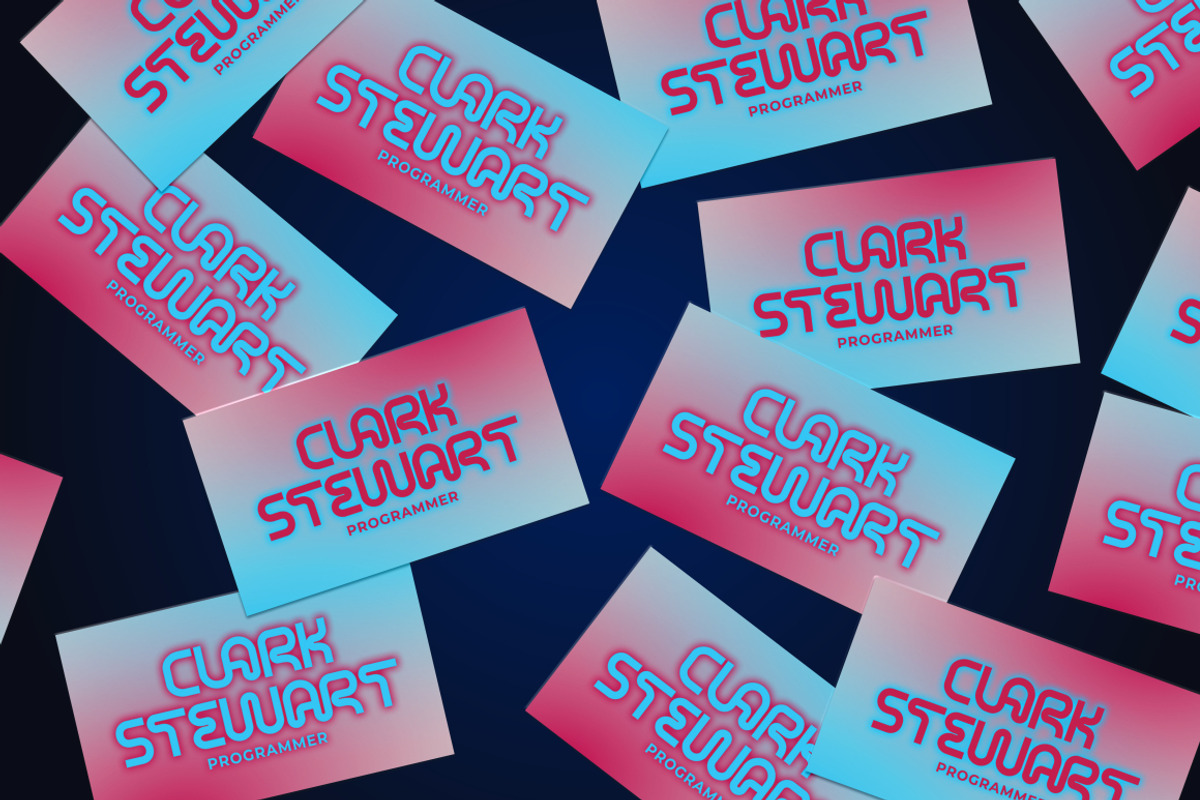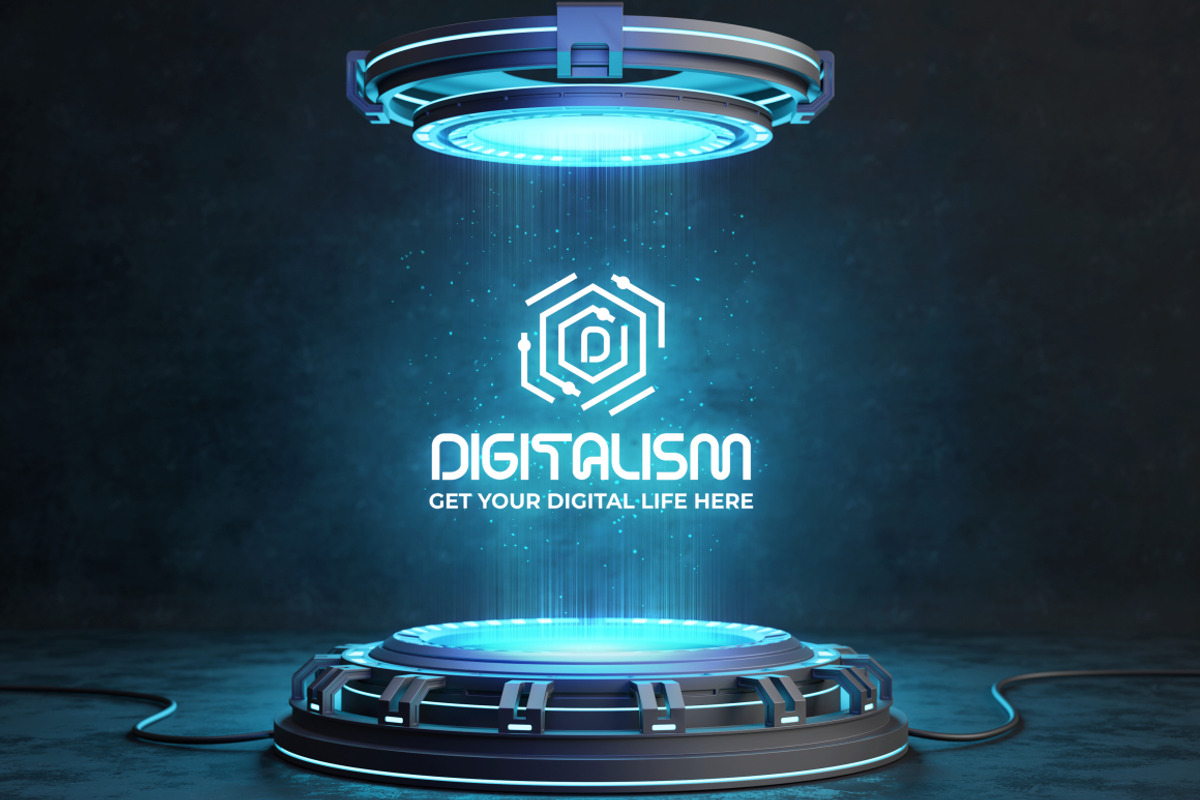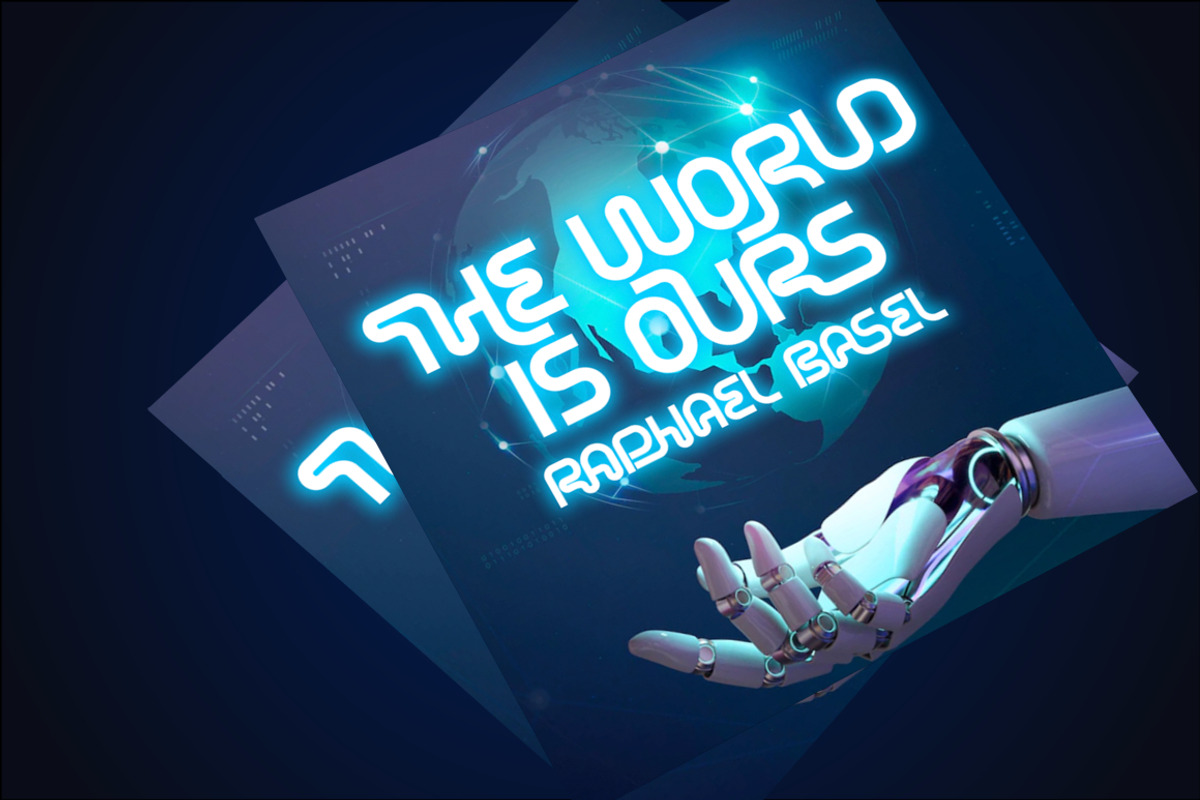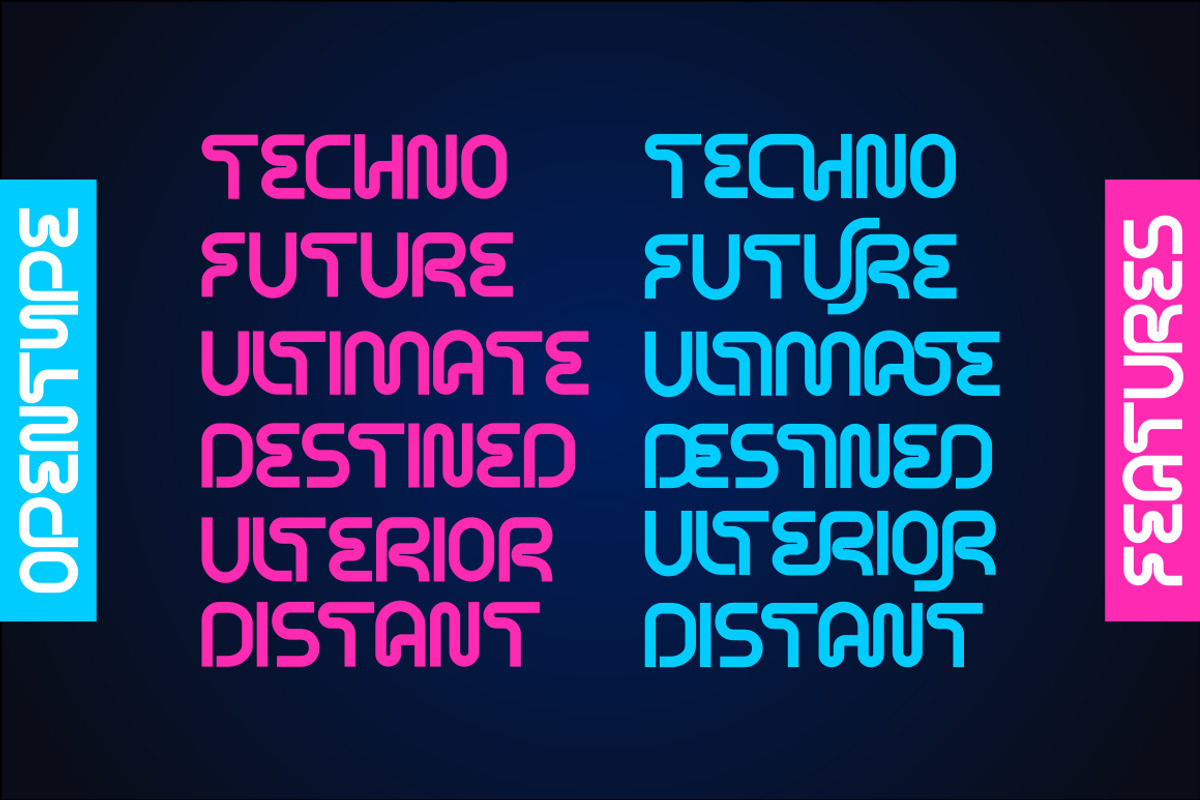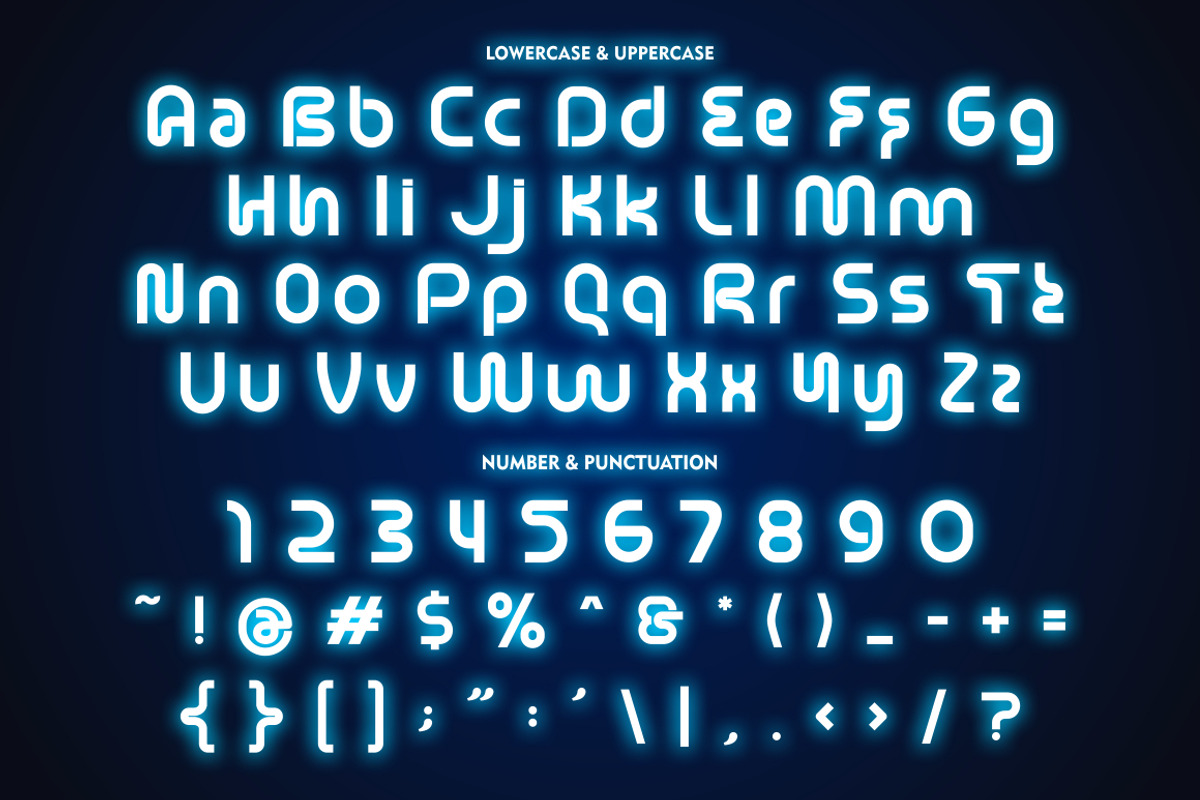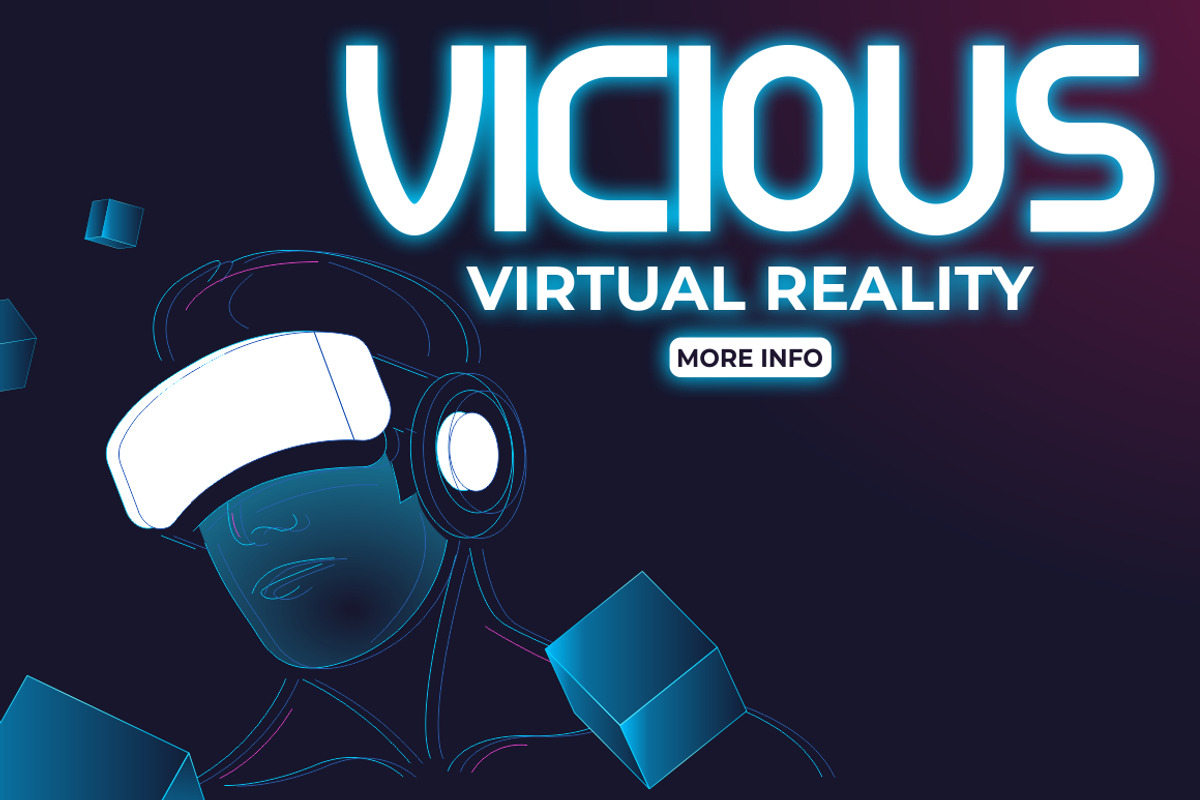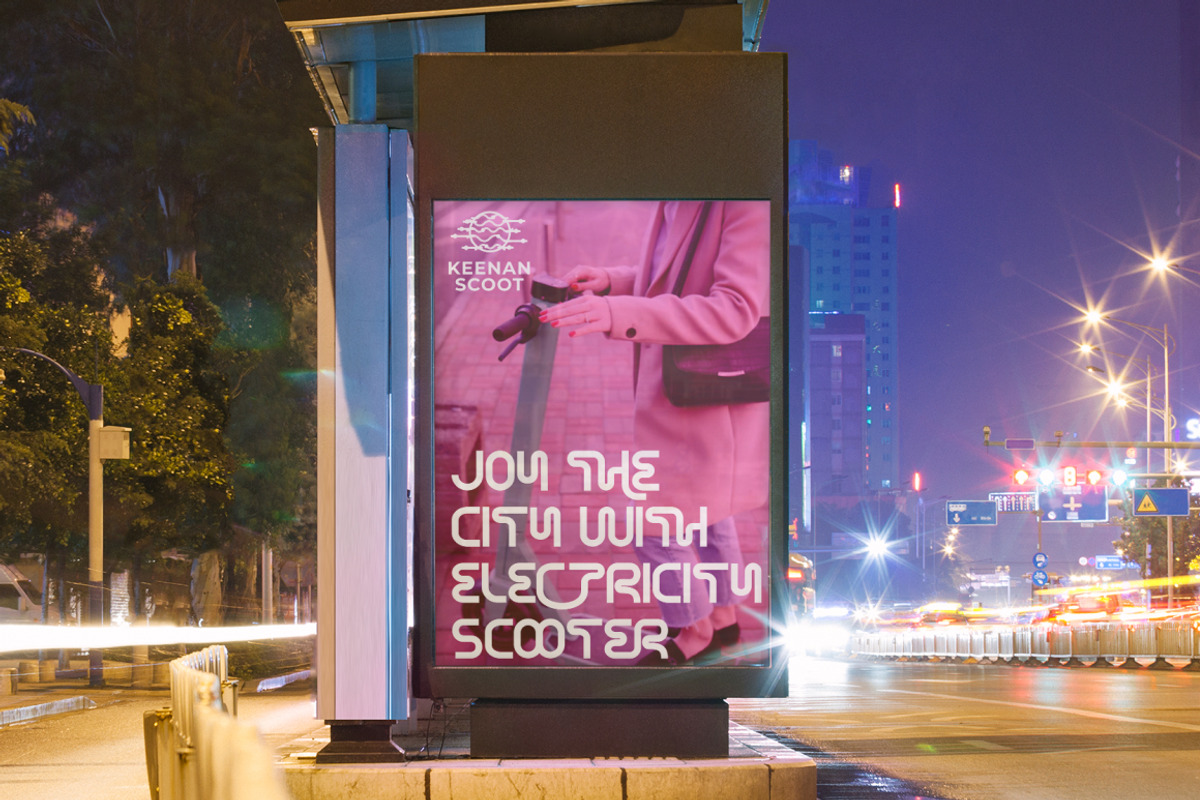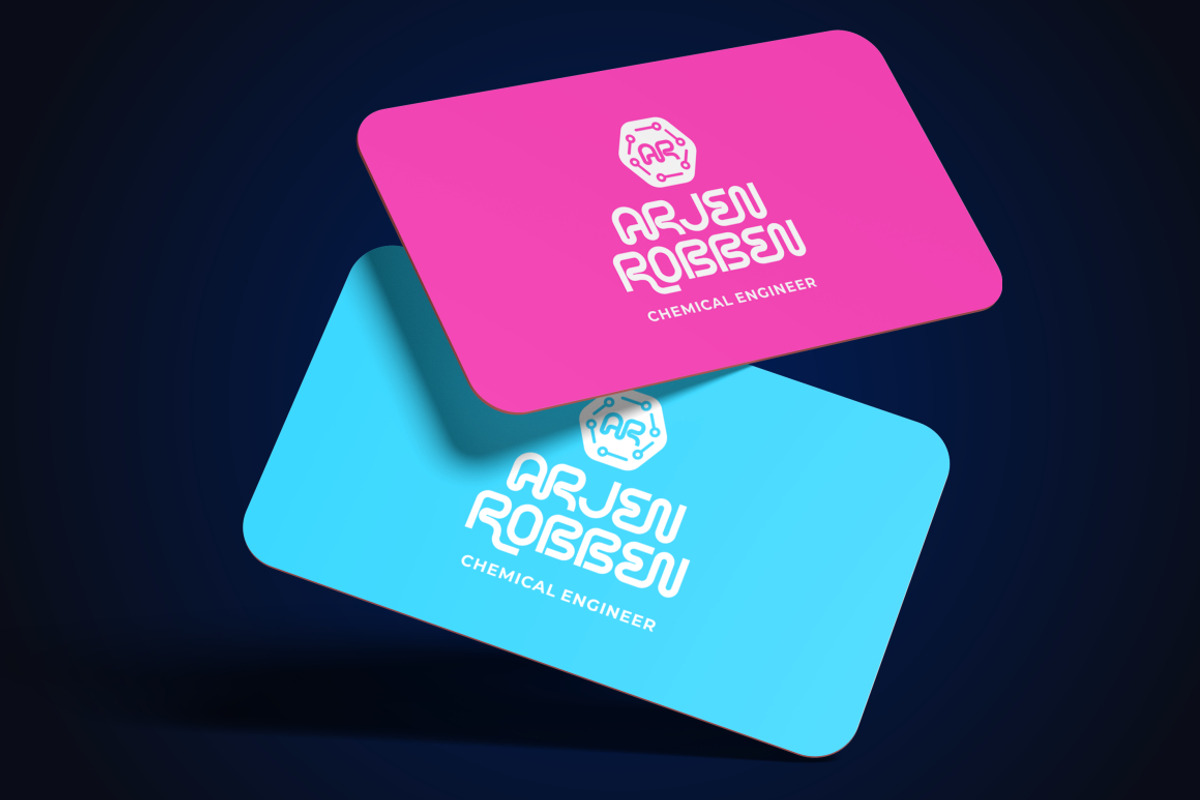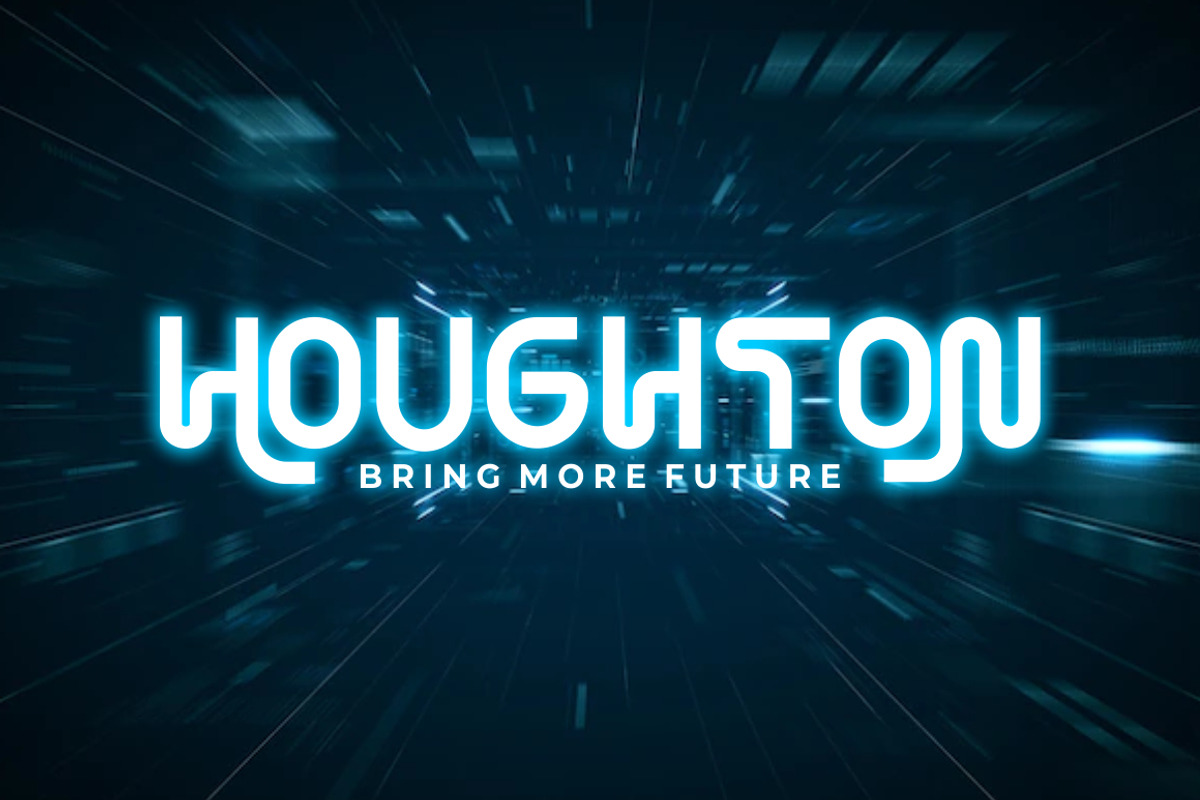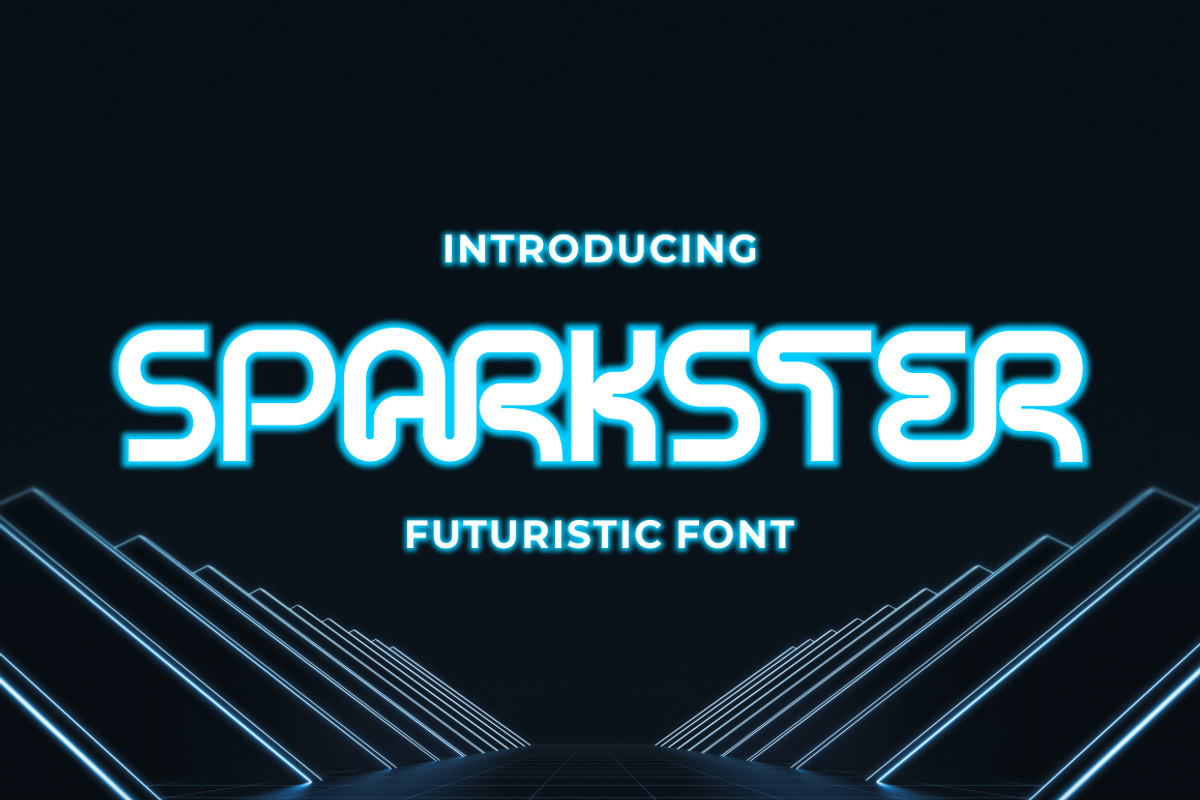
Sparkster - Futuristic Font
Introducing Sparkster, a bold and sleek futuristic font inspired by modern digital technology. This typeface is designed to create a cutting-edge and futuristic vibe for your design projects. The Sparkster font family includes both uppercase and lowercase characters, with Opentype features such as alternates and ligatures for a more customized look.
The idea behind Sparkster was to create a typeface that captures the essence of digital technology and future-oriented design. With its bold and sleek appearance, it is perfect for a wide range of design projects, including logos, covers, posters, branding, UI, titles, and more. Whether you're designing for a tech company or a forward-thinking brand, Sparkster is sure to make a statement.
For a futuristic and modern look, try using Sparkster for your branding and packaging projects. Its bold and sleek appearance is perfect for creating a cutting-edge and futuristic feel that will make your brand stand out. You can also use Sparkster for album covers, posters, and social media graphics to give your designs a high-tech and futuristic vibe.
Sparkster comes with a range of features, including uppercase and lowercase characters, Opentype alternates and ligatures, and multilanguage support. It also includes numbers, punctuation, and symbols to make it versatile for a range of design projects.
In summary, Sparkster is a bold and sleek futuristic font that is perfect for creating a cutting-edge and modern look for your design projects. With its unique and customizable features, you can make your designs stand out and make a statement. Try using Sparkster for your branding, packaging, logos, album covers, posters, and social media graphics to create a high-tech and futuristic feel.